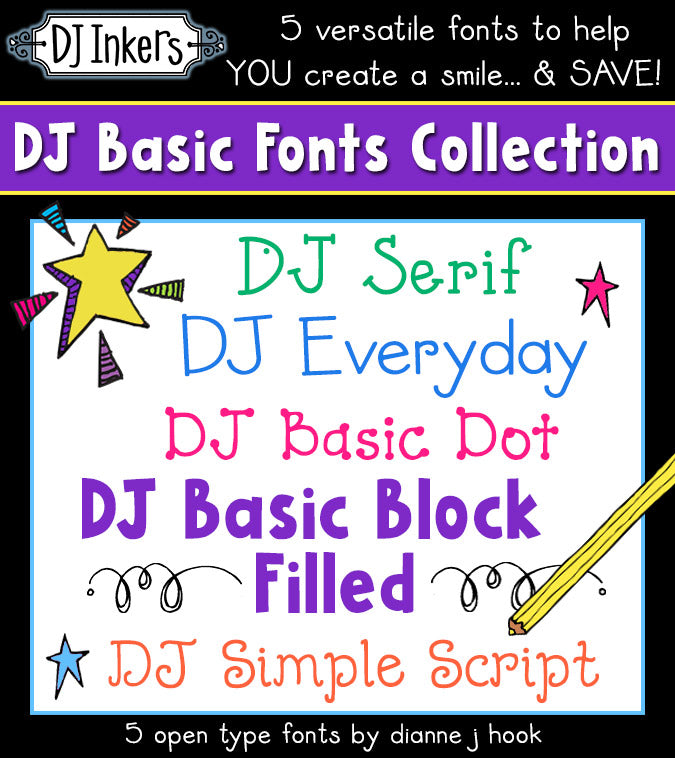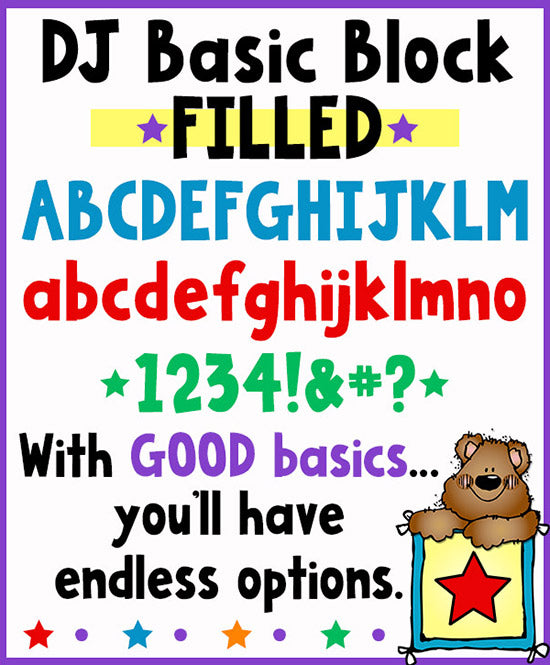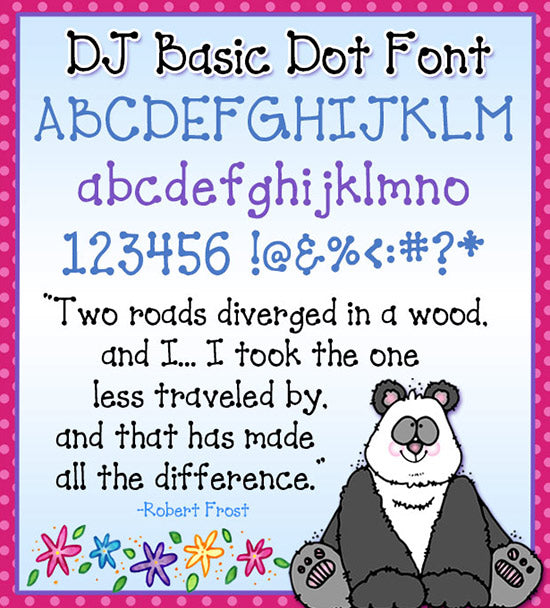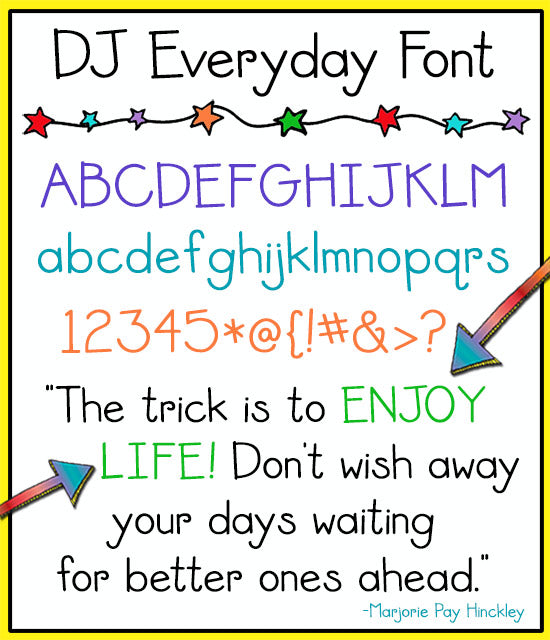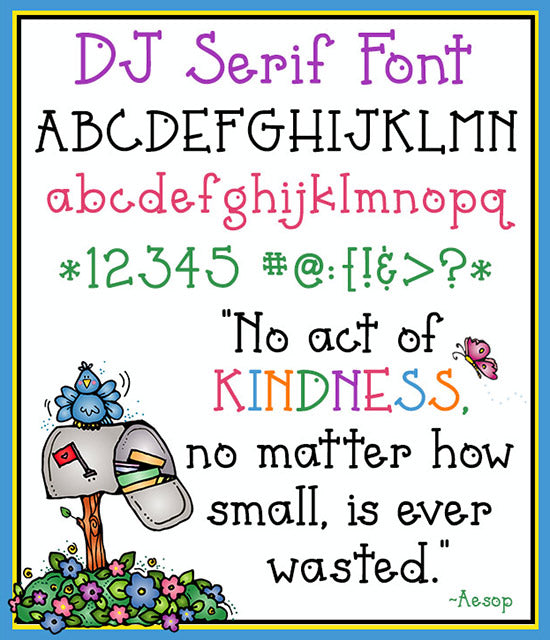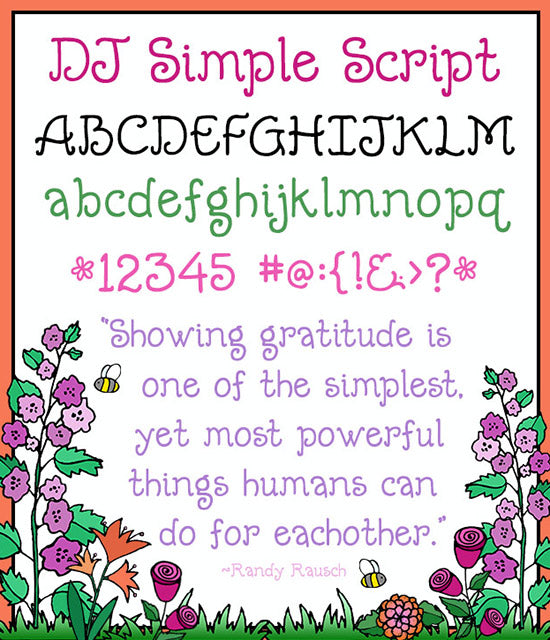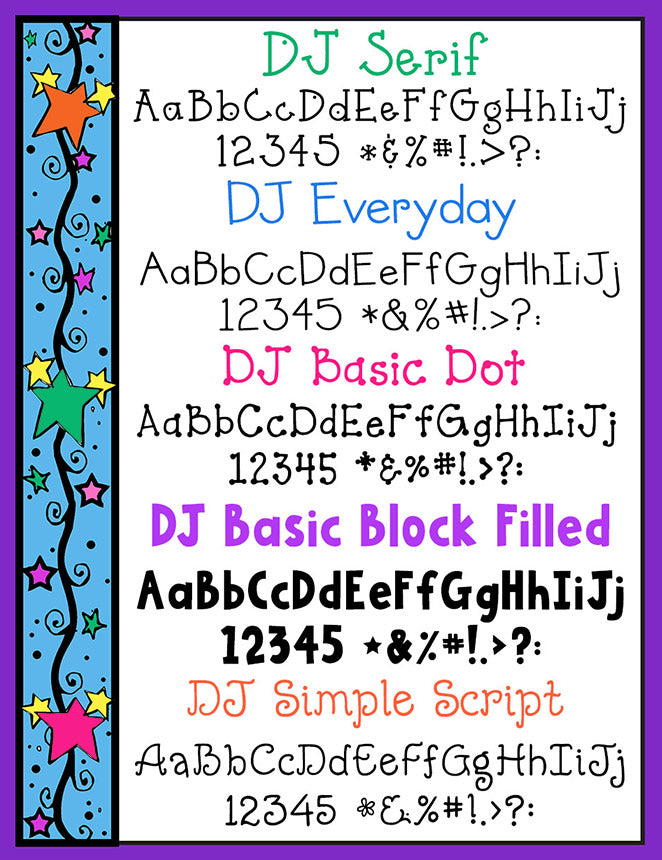
5 fun and versatile fonts for all your basic typing needs by DJ Inkers
DJ Basic Fonts Collection - 5 Font Bundle
With good basics you'll have endless options. :) That's why we created the DJ Basics Font Collection, with 5 simple & versatile fonts for all your basic typing needs.  Perfect for crafting & creating, teachers, administrators, special events and filling your projects with smiles. Who says basics have to be boring?
DJ Basic Block Filled, DJ Basic Dot, DJ Everyday, DJ Serif, and DJ Simple Script. Also sold separately, but this set saves you a bundle!